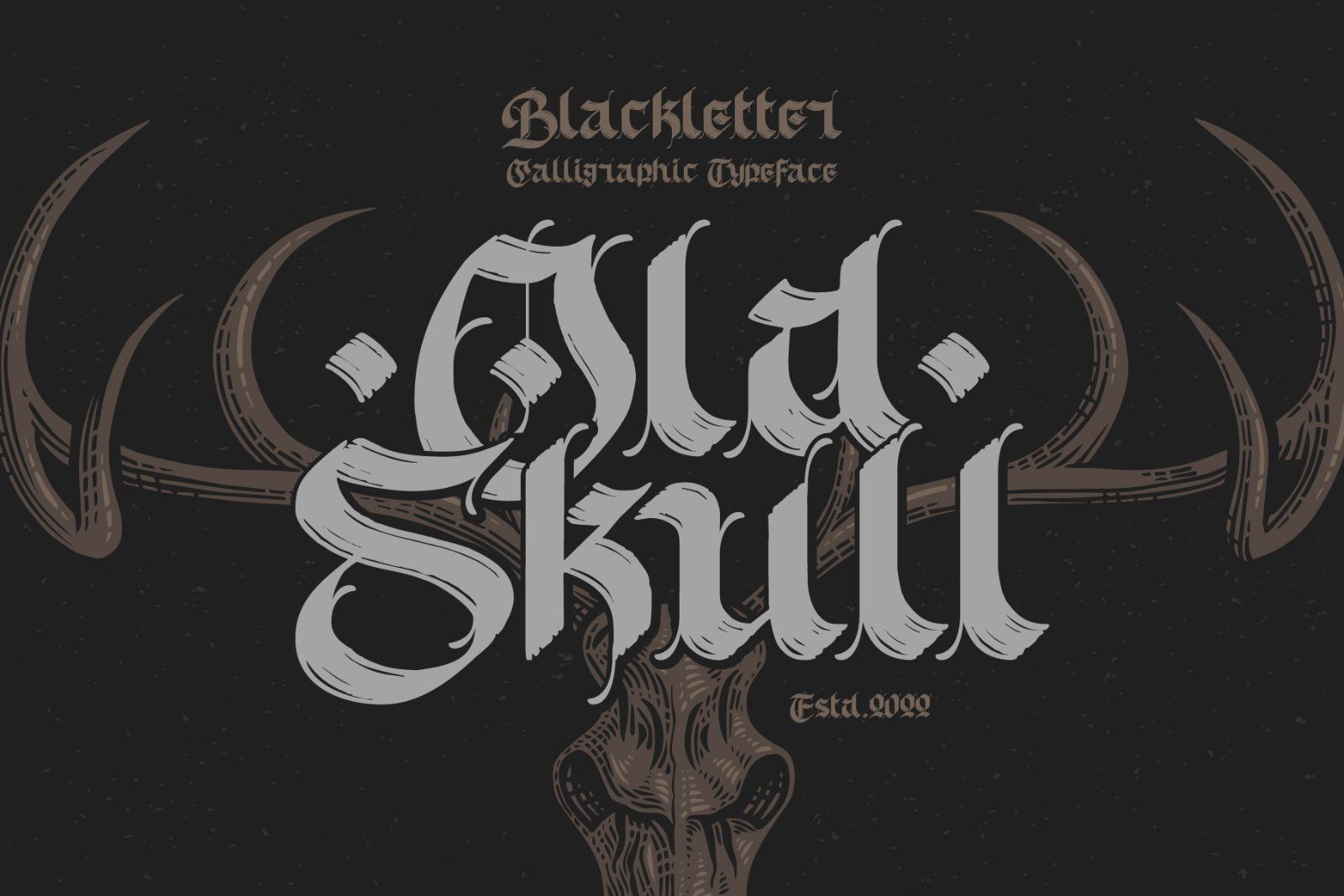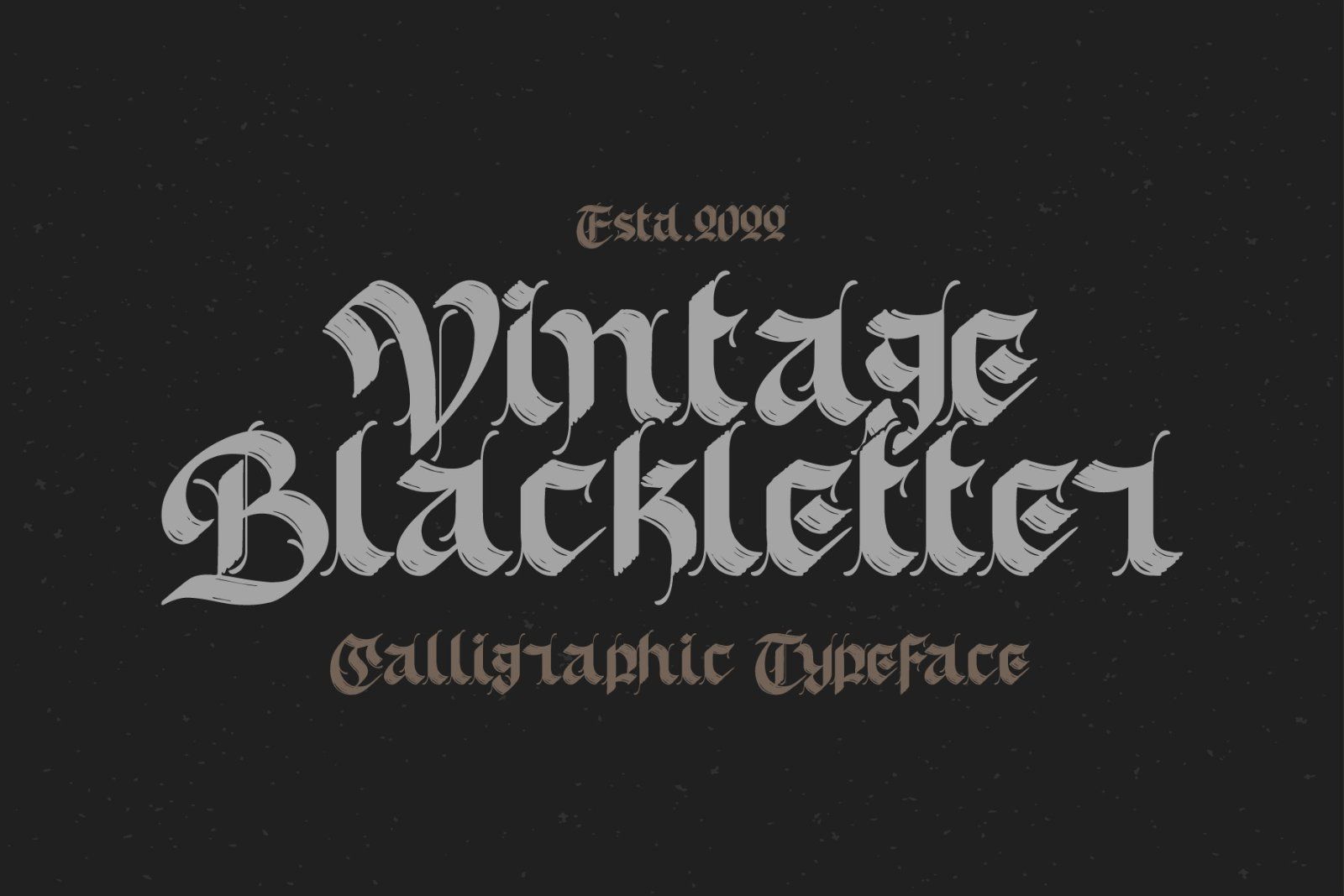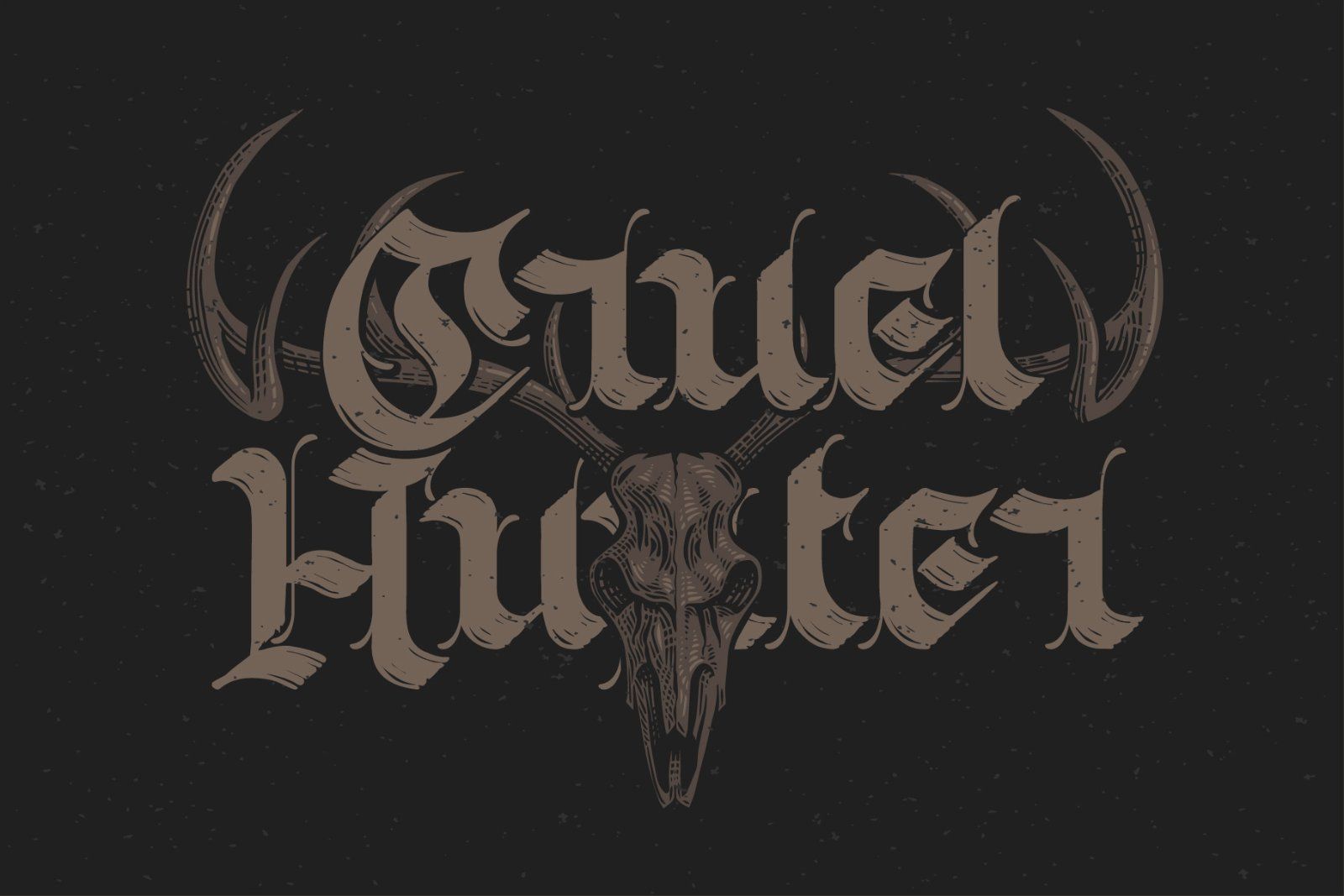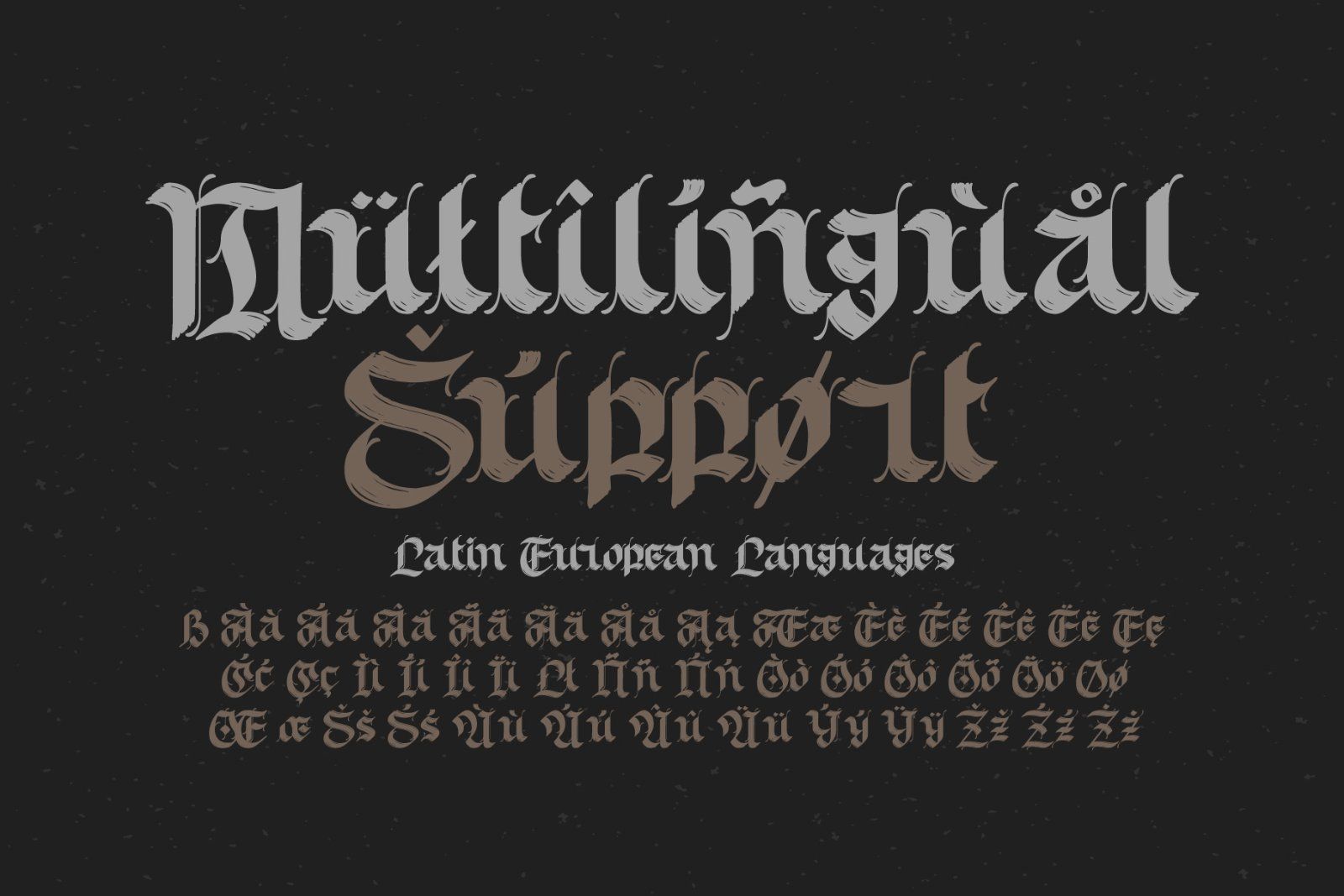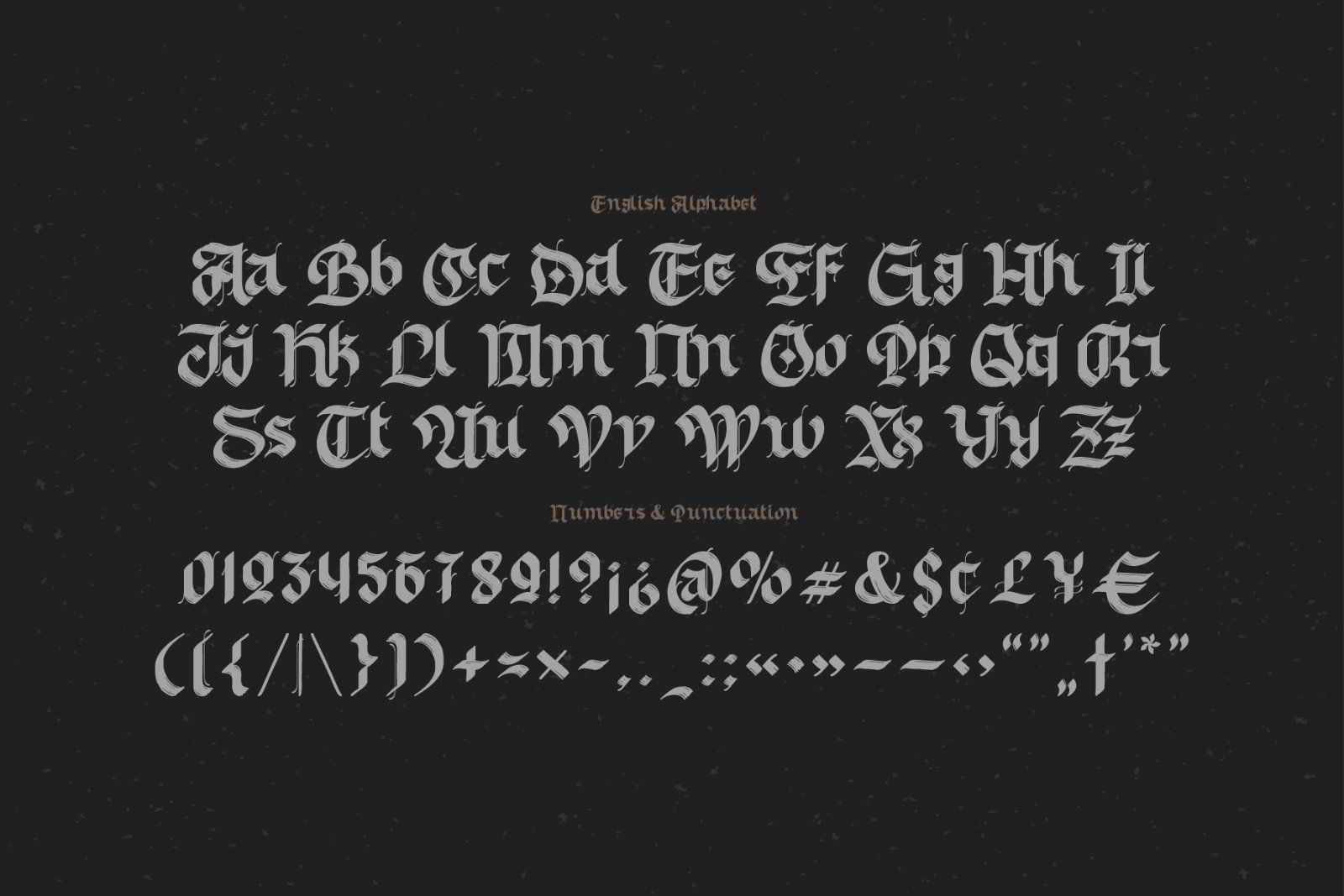
Hi, presenting a blackletter font named Old Skull. This vintage gothic look typeface was originally made using a flat calligraphic pen what makes it more organic and natural. Old Skull typeface suits the best for original t-shirt prints and tattoo designs. This font supports most of the European languages, please check out the screenshot with all available characters.
Also as a bonus you'll get a vector illustration of a deer skull with "Cruel Hunter" text poster.